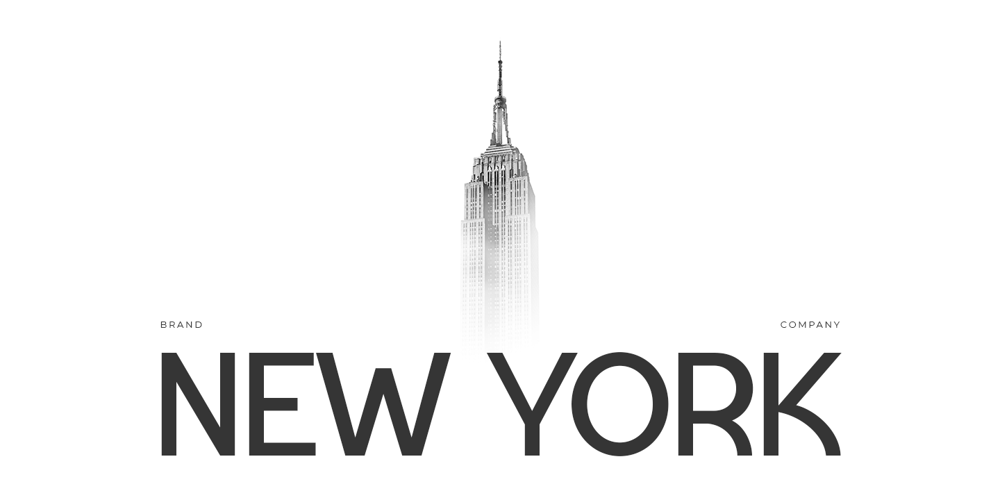
Satiga Font Family was designed by Zamroni Hamzah and published by Sensatype Studio. Satiga contains 1 styles and family package options. Helovatica is a sans serif font with modern, corporate, elegant, unique and classy-look. This font crafted specials for logo design projects, ready to use on Logo, Branding, Magazine, Social Media, and Many more that needs modern touches.Helovatica is also included full set of: uppercase and lowercase letters multilingual characters numerals punctuation Wish you enjoy our font. ๐